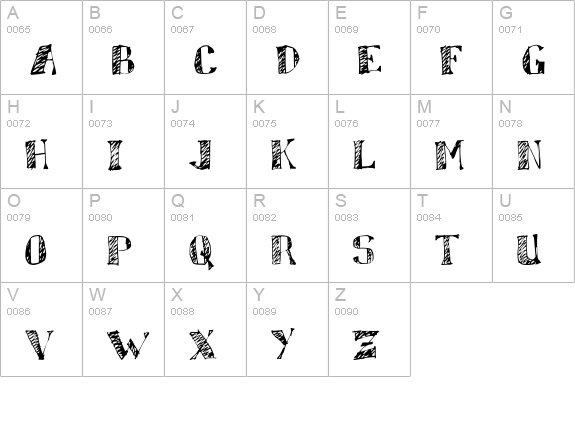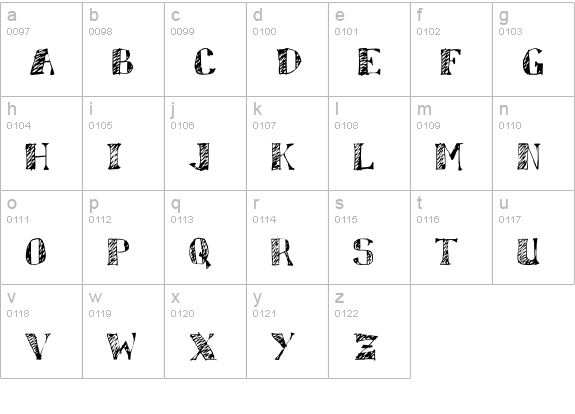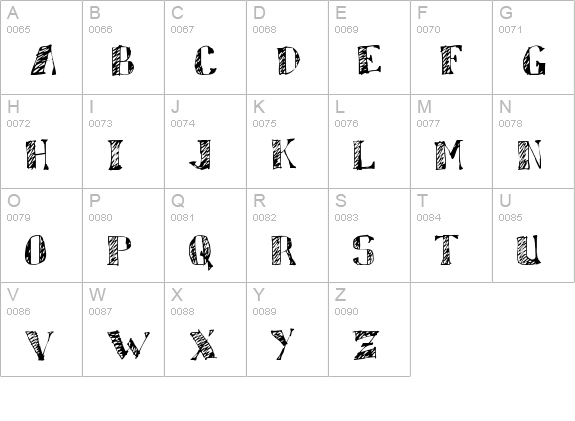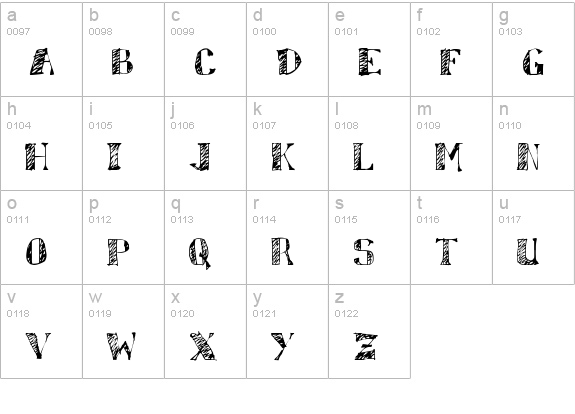
Sketchy Font Details
Introducing Sketchy font, a whimsical and playful typeface that is sure to add a touch of creativity to your designs. With its hand-drawn appearance and irregular strokes, Sketchy font brings a unique and artistic charm to any project. Whether you're designing a poster, creating a logo, or adding a personal touch to a greeting card, this font is the perfect choice. What sets Sketchy font apart is not only its incredible design but also the fact that it is free. Yes, you read that right - this amazing font can be downloaded at absolutely no cost from FontsMarket.com. Now you don't have to worry about breaking the bank to access high-quality and visually captivating typography. With Sketchy font, you can unleash your imagination without any limitations. This font is incredibly versatile and can be used in a variety of contexts. Its playful nature makes it ideal for children's books, party invitations, and any design that aims to capture a sense of fun and joy. On the other hand, its organic and imperfect lines also make it suitable for more artistic and handcrafted projects, such as handwritten quotes, sketches, and illustrations. Sketchy font is designed with meticulous attention to detail, ensuring that each character maintains its distinct personality and charm. From the whimsical curves of the lowercase letters to the unique flourishes in the uppercase characters, this font is a true work of art. Whether you're a professional designer or someone looking to add a creative flair to your personal projects, Sketchy font is the perfect tool to elevate your typography game. And the best part? It's free! So don't miss out on this incredible opportunity to download Sketchy font at FontsMarket.com and let your imagination run wild.